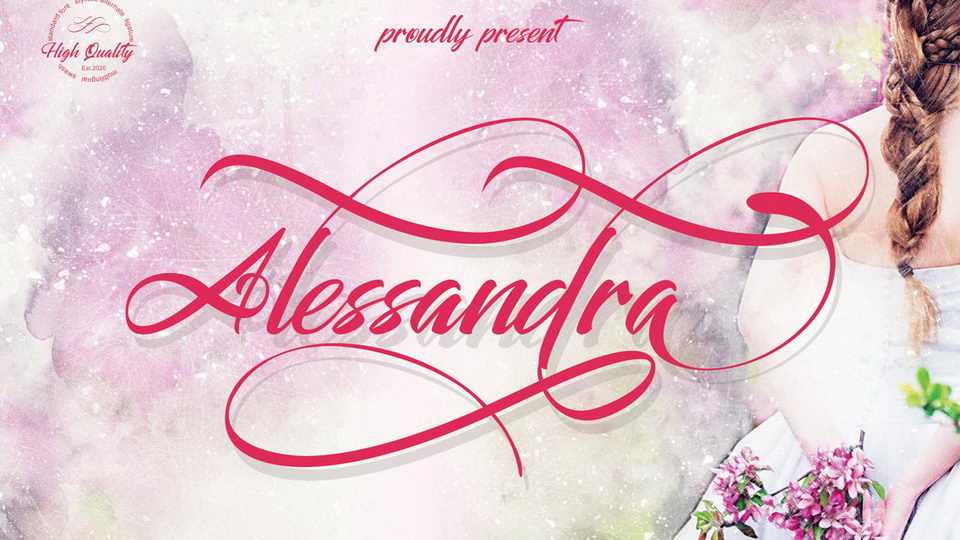
Download Alessandra font, a gorgeous modern calligraphy script with fancy swashes. Alessandra is suitable for projects that need a touch of romantic style, logo, wedding designs, greeting cards and more.